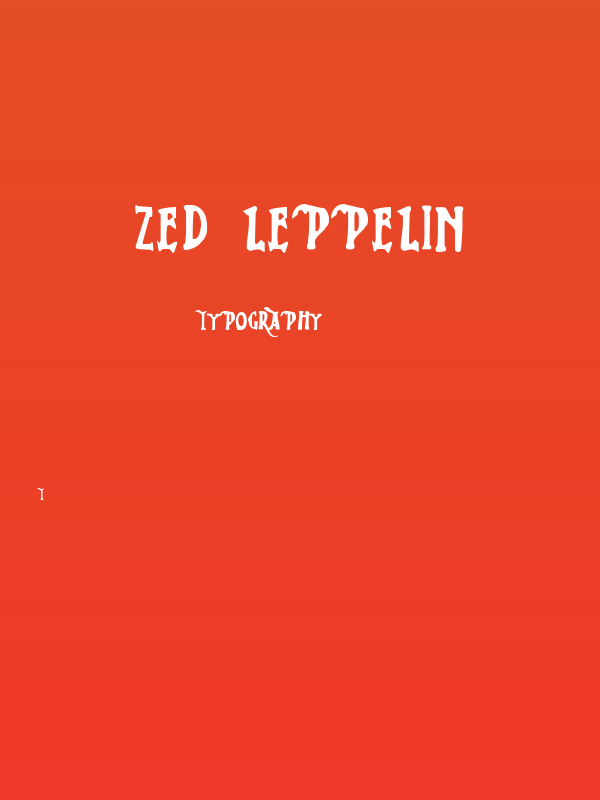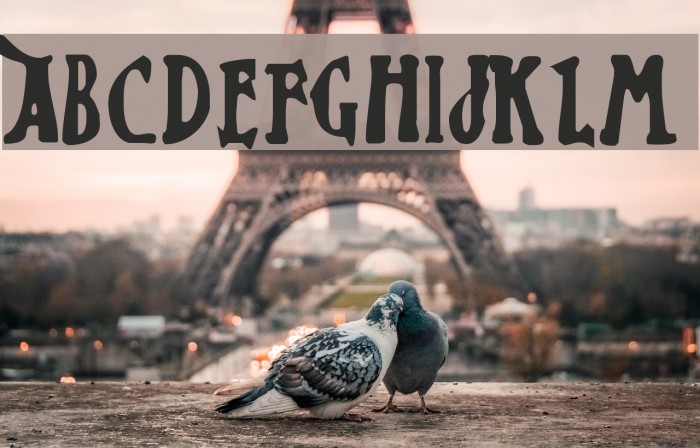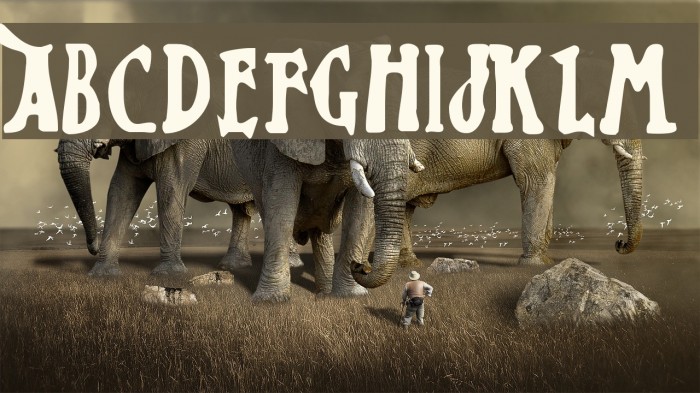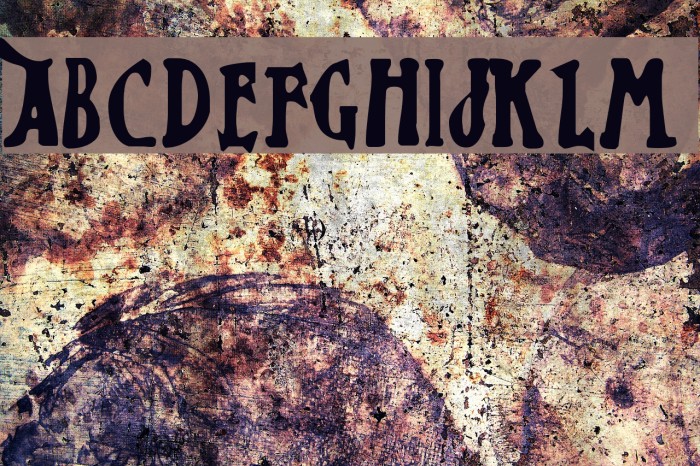
Zed Leppelin Font
Zed Leppelin Description
This font features a bold and dynamic style with a distinct rock and roll vibe. The characters are heavily stylized, with exaggerated curves and unique flourishes that give it a sense of movement and energy. The uppercase letters are particularly striking, with some characters featuring elongated strokes and others incorporating sharp angles. The overall design is reminiscent of classic rock band logos, making it ideal for projects that require a bold, attention-grabbing aesthetic. The font's unique character shapes and bold weight make it stand out, while its decorative elements add a touch of vintage flair.
| Overall Style | Vintage, Decorative |
| Use Case | Logos, Headlines |
| Proposed Projects | Ideal for music album covers, band logos, concert posters, and retro-themed designs. |